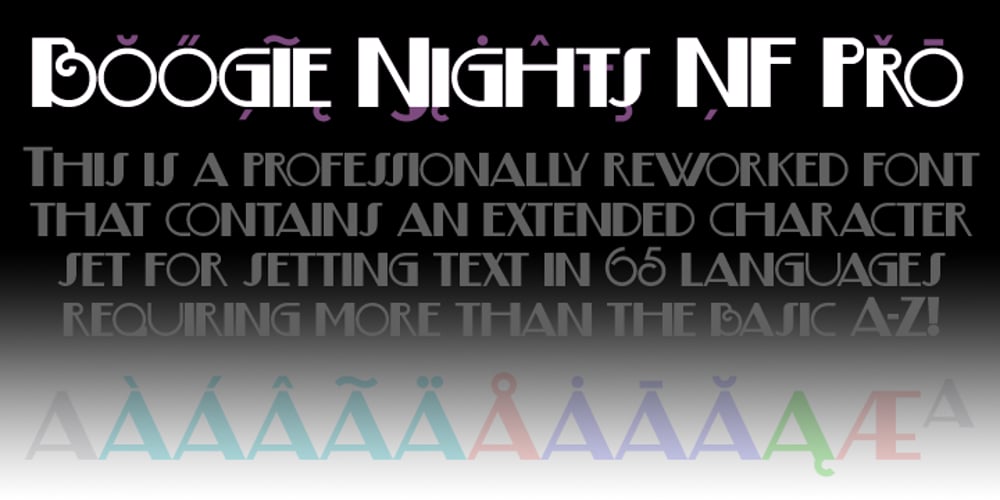
Boogie Nights NF Pro Font Family was designed by Nick Curtis, Roger S. Nelsson and published by CheapProFonts. Boogie Nights NF Pro contains 1 styles and family package options. A typical Art Deco font. I have redesigned the uppercase “S” to mach the lowercase, tweaked a little here and there – and completely redesigned all the diacritics (which didn’t really match the letter designs). Nick Curtis says: “The inspiration for this font came from a poster for an Austrian trade show from the 1920s, credited simply to Wasserman.” ALL fonts from CheapProFonts have very extensive language support: They contain some unusual diacritic letters (some of which are contained in the Latin Extended-B Unicode block) supporting: Cornish, Filipino (Tagalog), Guarani, Luxembourgian, Malagasy, Romanian, Ulithian and Welsh. They also contain all glyphs in the Latin Extended-A Unicode block (which among others cover the Central European and Baltic areas) supporting: Afrikaans, Belarusian (Lacinka), Bosnian, Catalan, Chichewa, Croatian, Czech, Dutch, Esperanto, Greenlandic, Hungarian, Kashubian, Kurdish (Kurmanji), Latvian, Lithuanian, Maltese, Maori, Polish, Saami (Inari), Saami (North), Serbian (latin), Slovak(ian), Slovene, Sorbian (Lower), Sorbian (Upper), Turkish and Turkmen. And they of course contain all the usual “western” glyphs supporting: Albanian, Basque, Breton, Chamorro, Danish, Estonian, Faroese, Finnish, French, Frisian, Galican, German, Icelandic, Indonesian, Irish (Gaelic), Italian, Northern Sotho, Norwegian, Occitan, Portuguese, Rhaeto-Romance, Sami (Lule), Sami (South), Scots (Gaelic), Spanish, Swedish, Tswana, Walloon and Yapese.